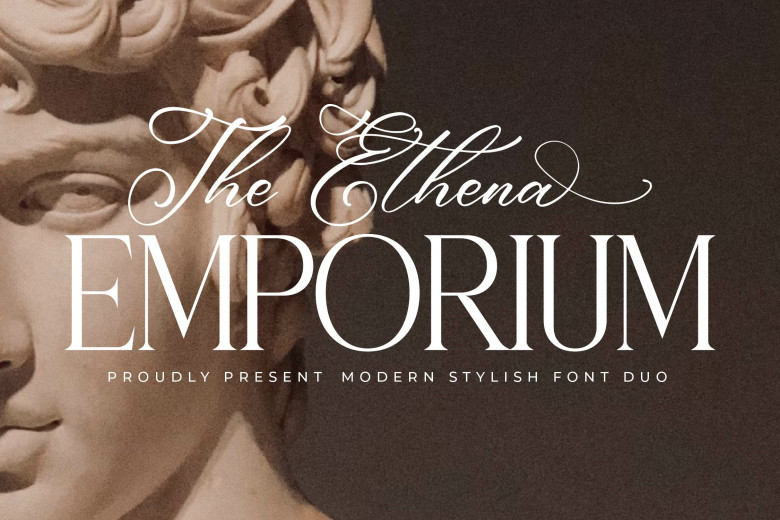
Ethena Emporium Font
Ethena Emporium Font Duo is a stylish script and serif typeface with its own distinct design and modern appearance, perfect for creating sophisticated logos, movie or book title designs and fashion labels, magazine letters, clothing quotes or quotes from literature, among many other applications.
Ethena Emporium Font Duo